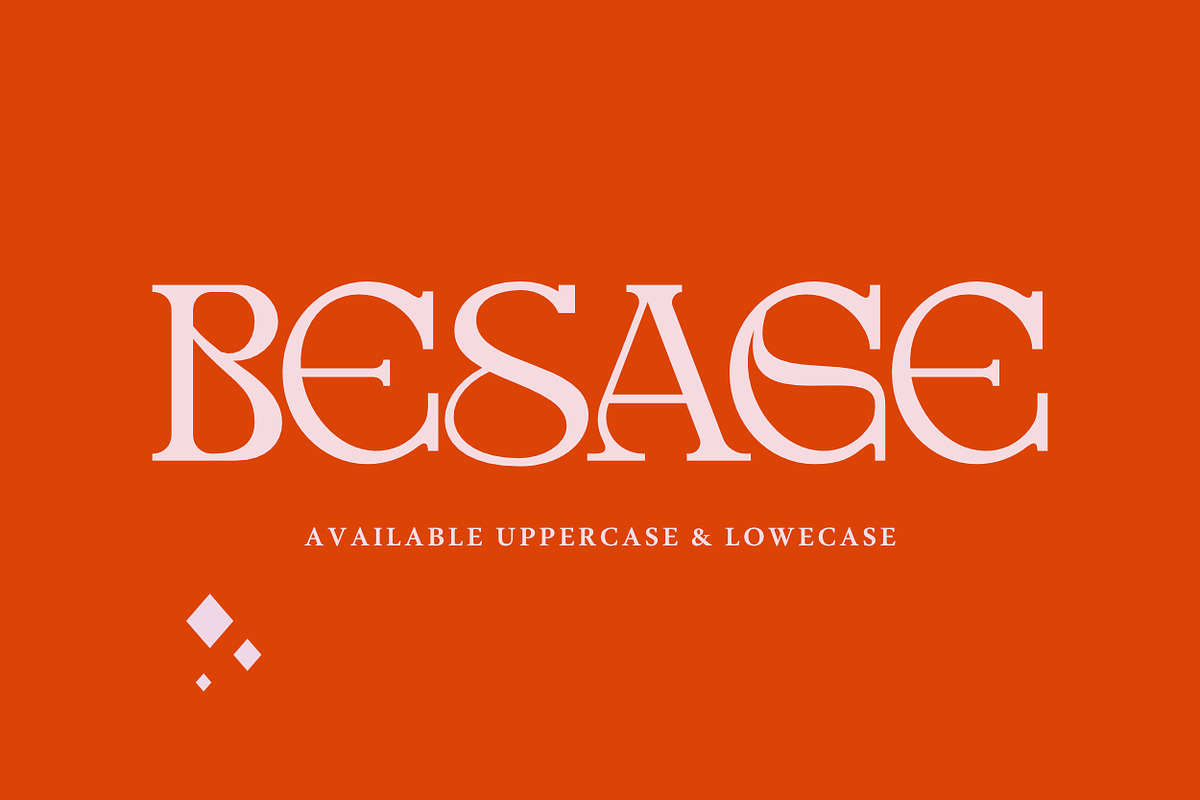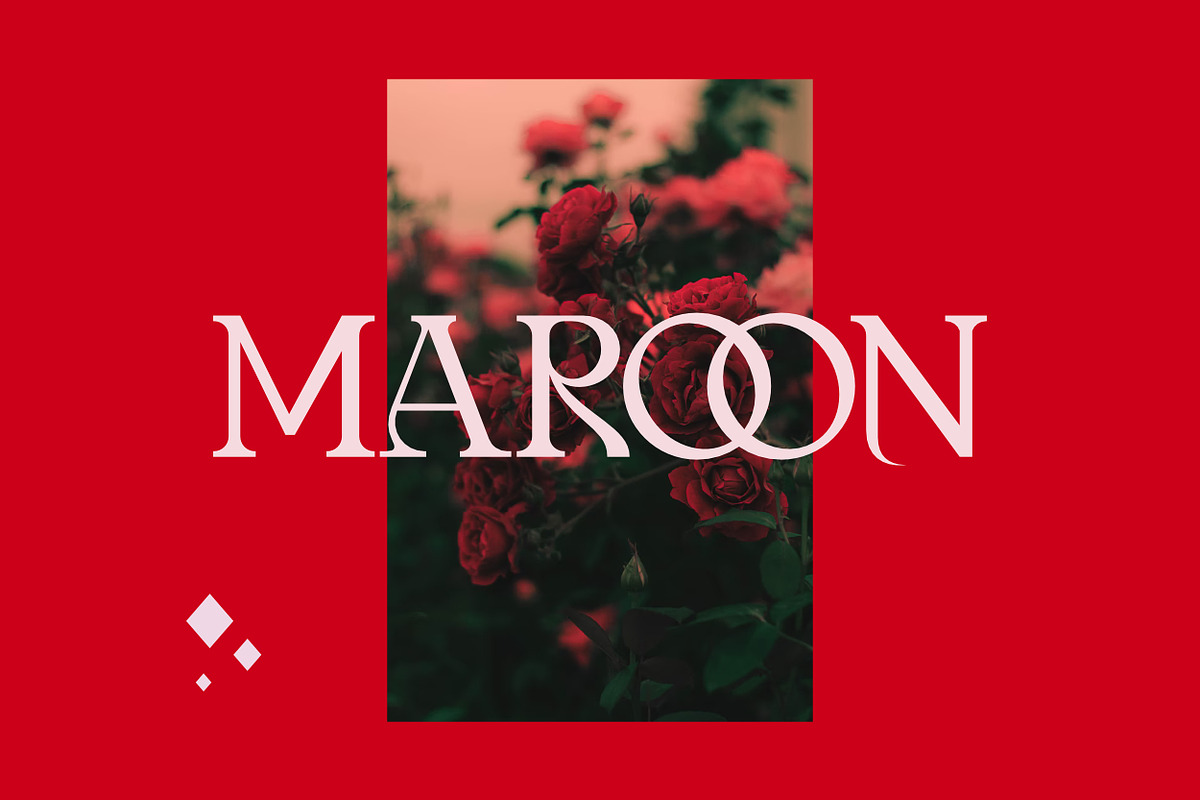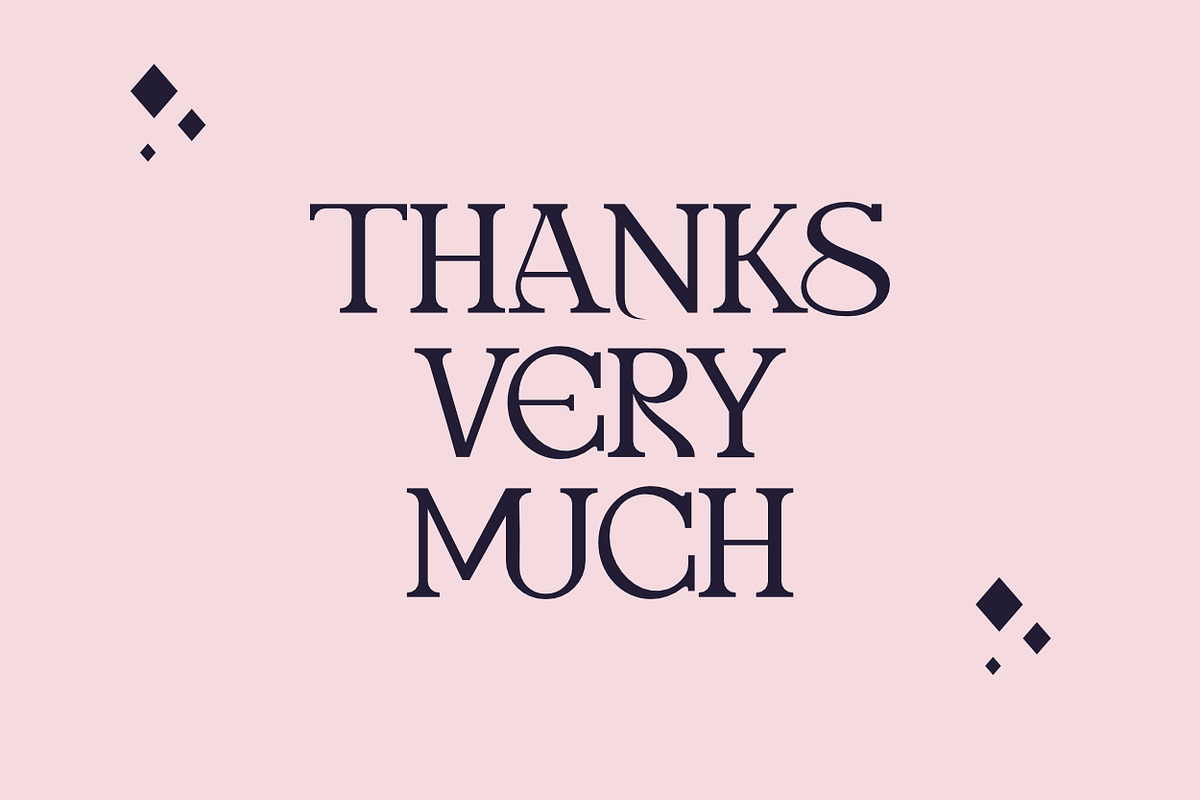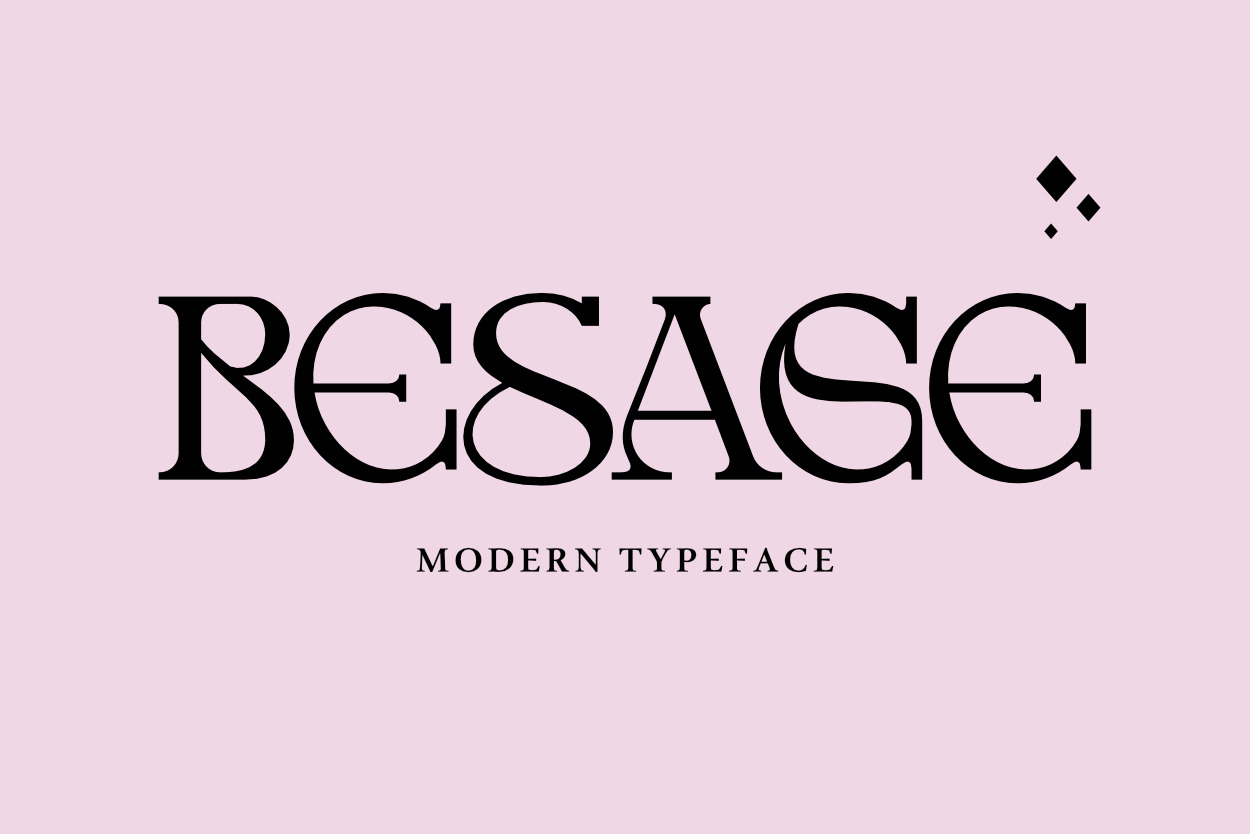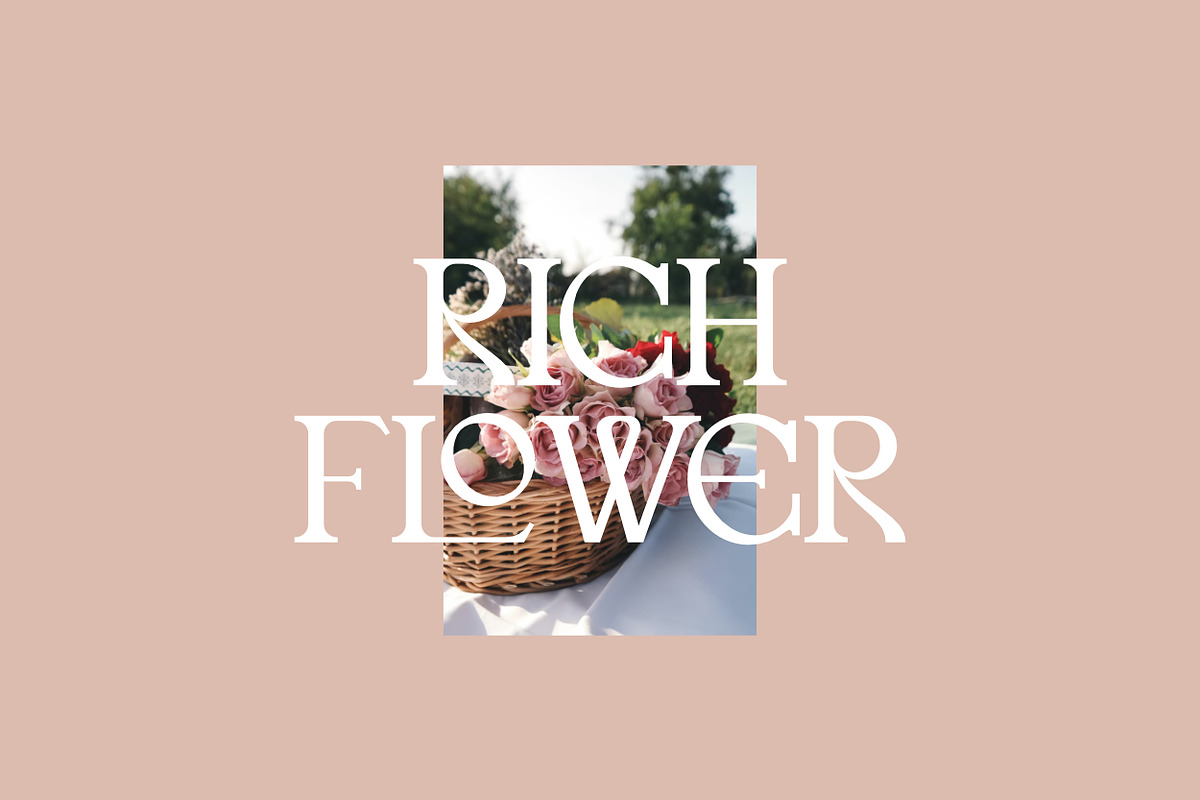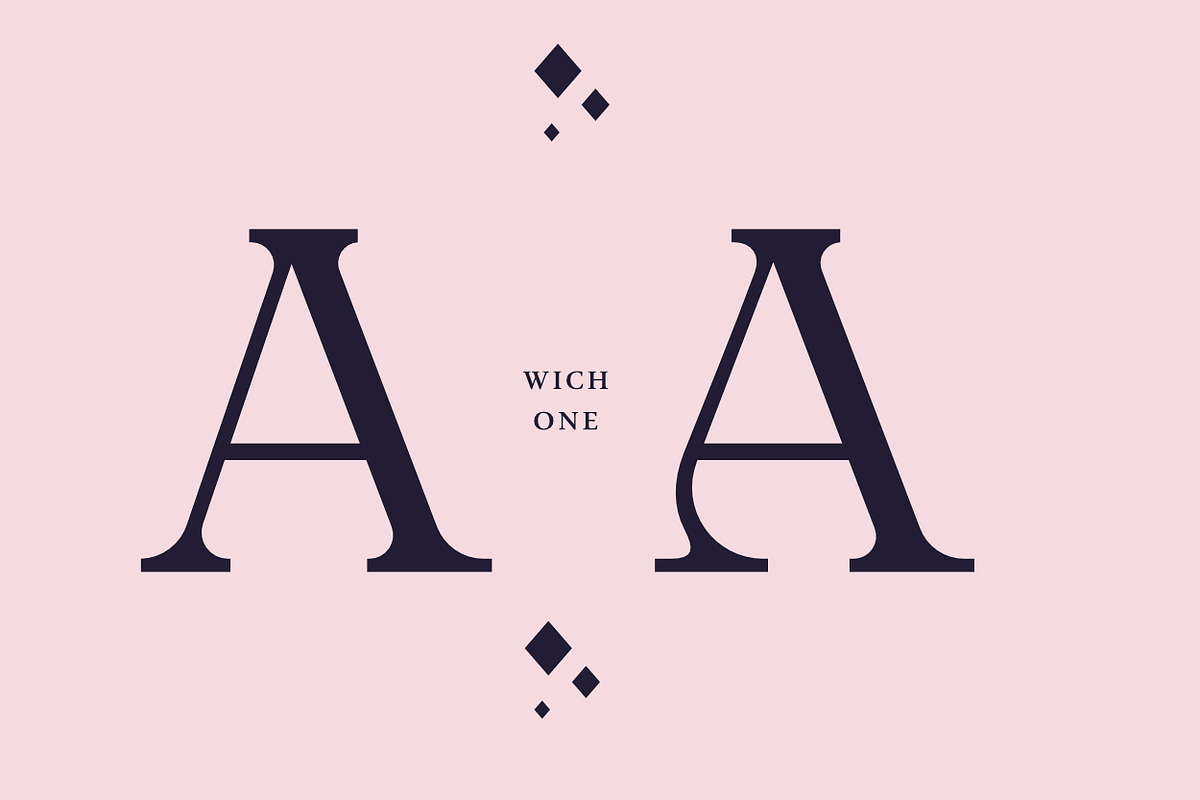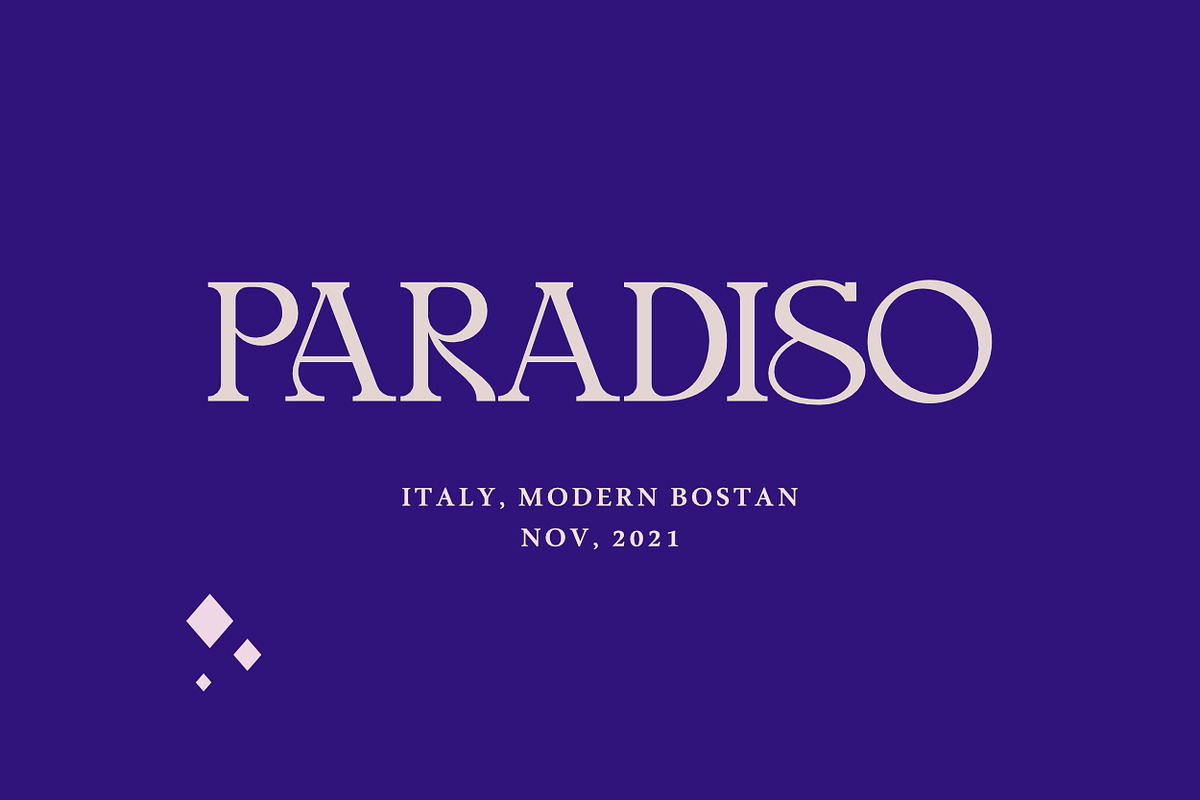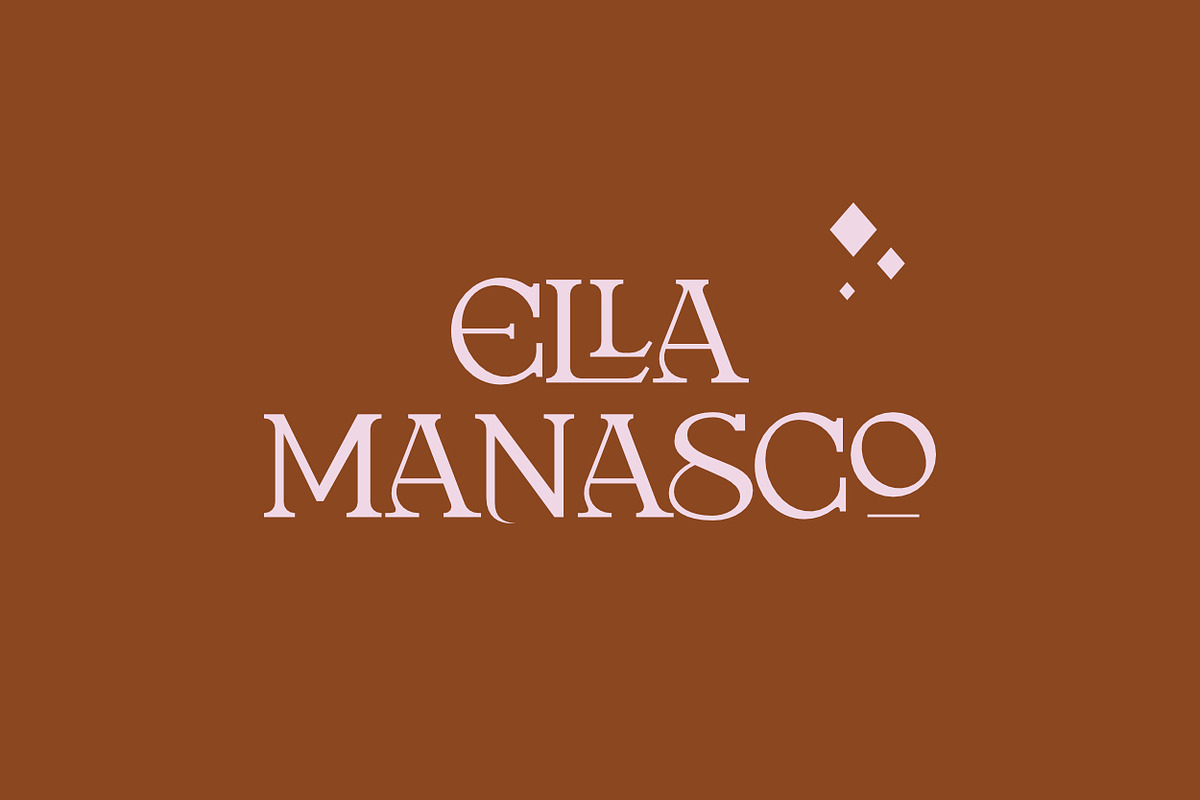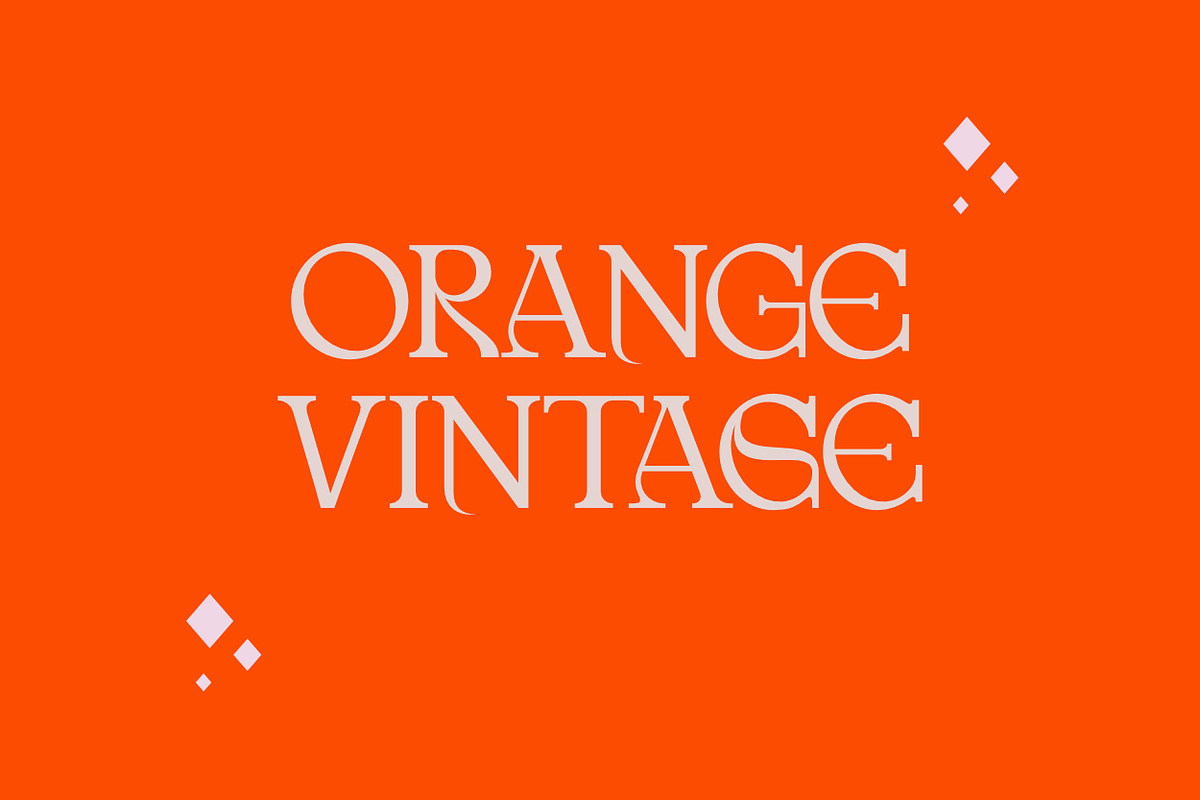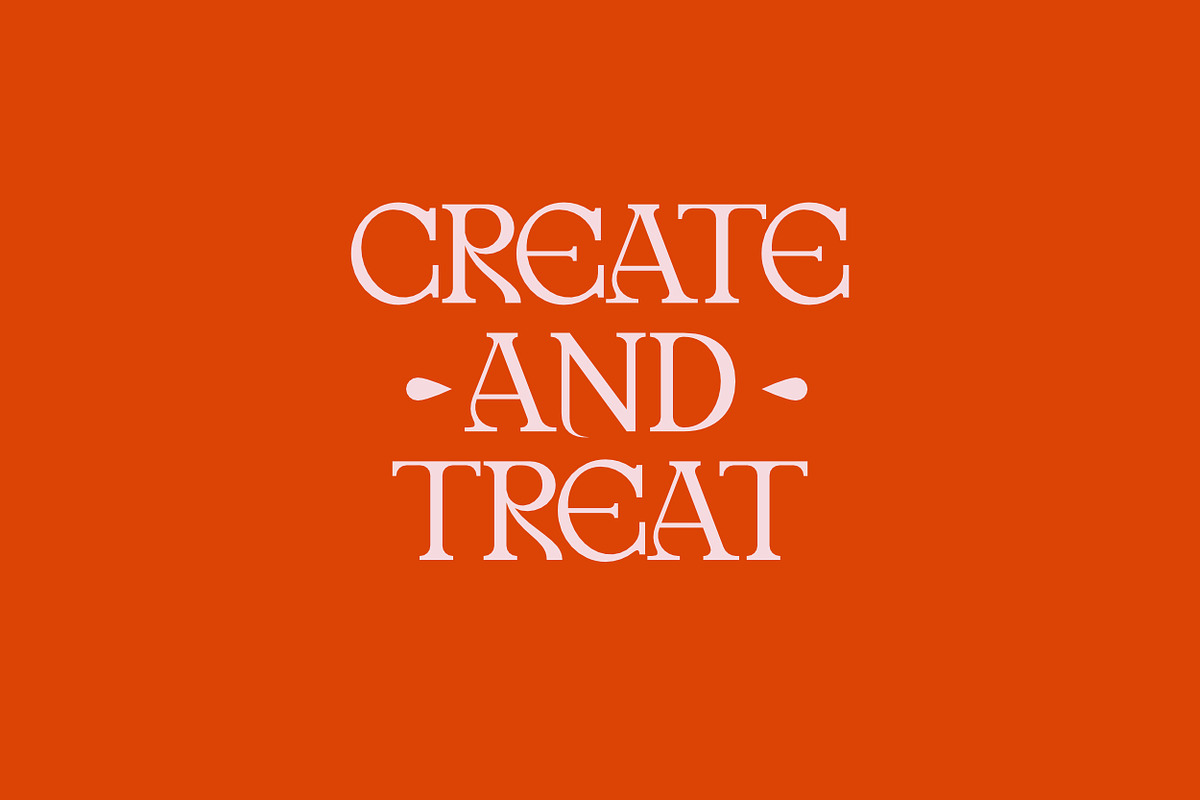
BESAGE DISPLAY FONT
Hello everyone, introduce my font. “BESAGE DISPLAY” font is made with great taste. BESAGE DISPLAY are very suitable to be placed on your project such as for weddings, printing, advertising, campaigns, posters, book titles, and so on.